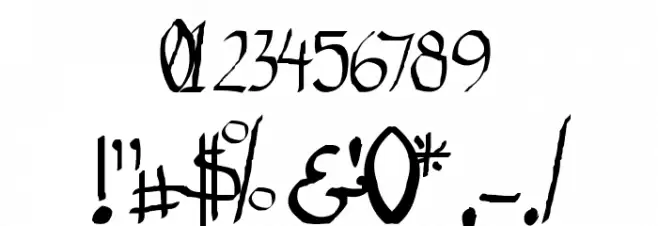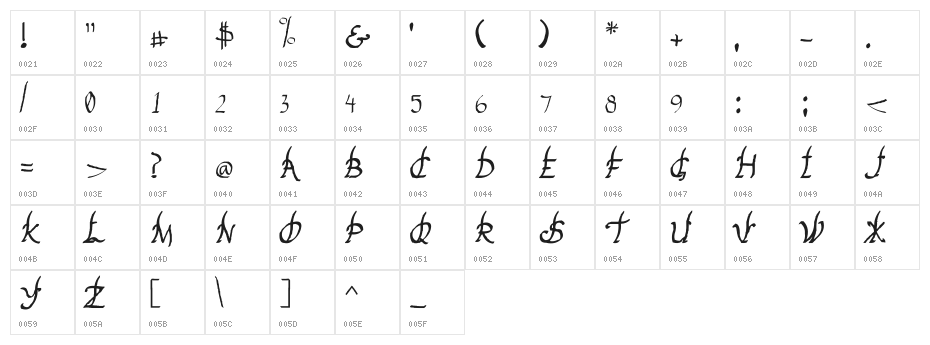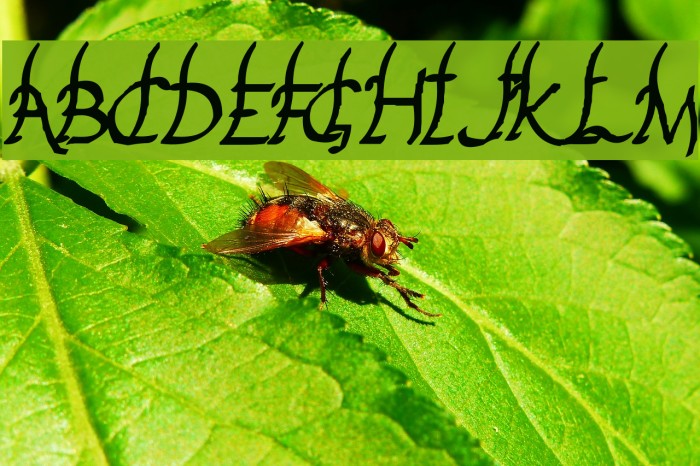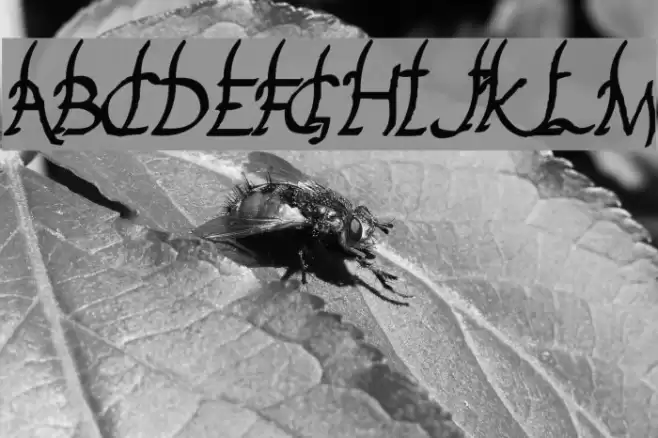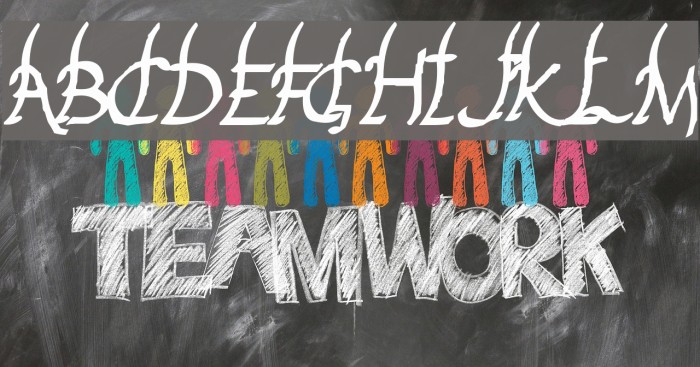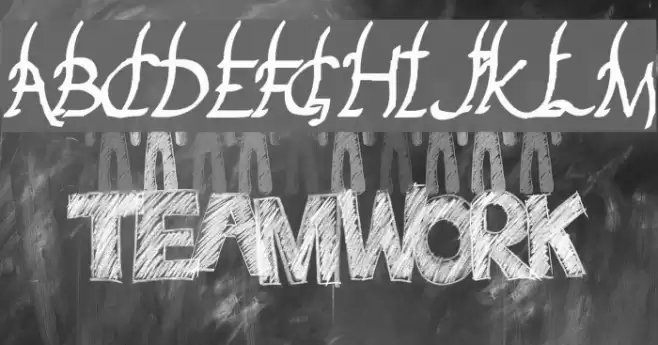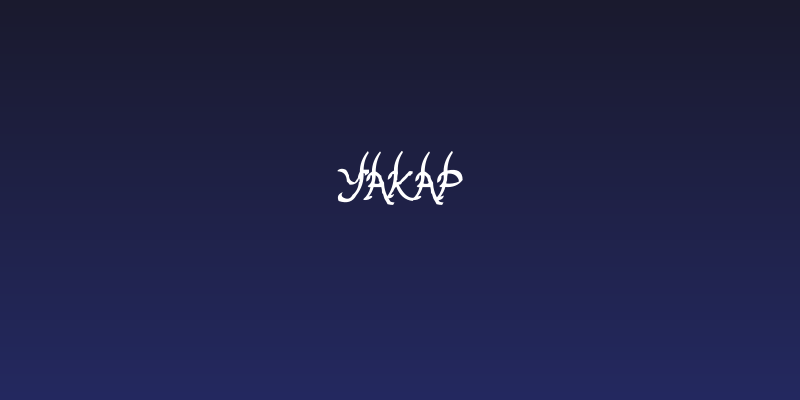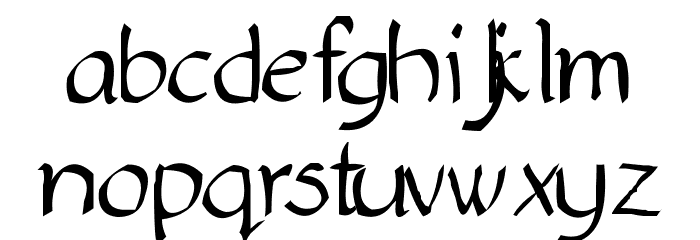
Yakap Font
Yakap Description
This font features a dynamic and expressive style, characterized by its fluid and cursive letterforms. The strokes are uneven, with varying thickness that adds a sense of movement and energy. The uppercase letters are particularly bold and dramatic, while the lowercase letters maintain a more consistent flow. The numbers and special characters follow the same expressive style, making the font suitable for creative and artistic projects. The overall appearance is both modern and slightly rebellious, with a touch of elegance.
| Proposed Projects | Ideal for artistic projects, branding, posters, and invitations where a touch of creativity and elegance is desired. |